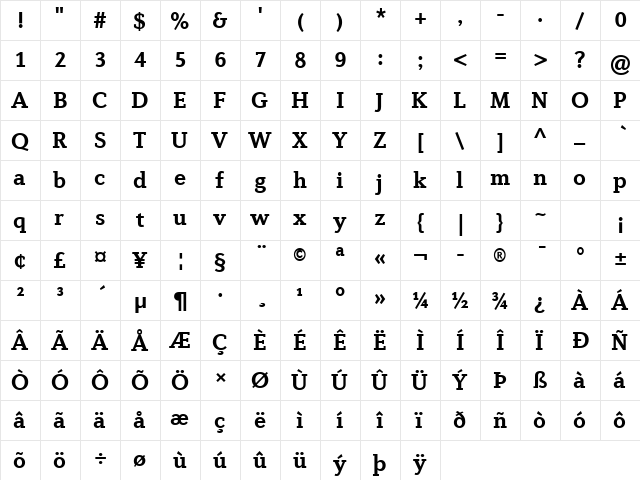
Diverda Serif Com Bold
Design Context for Diverda Serif Com Typeface
Diverda Serif Com brings classic typographic sensibility to the table — its serifs and measured letterforms reflect centuries of print heritage. Its bold stroke weight gives it real presence on the page.
Pro Tip: Set Diverda Serif Com with slightly loose tracking in headlines to let each letterform's detail read clearly at display sizes.